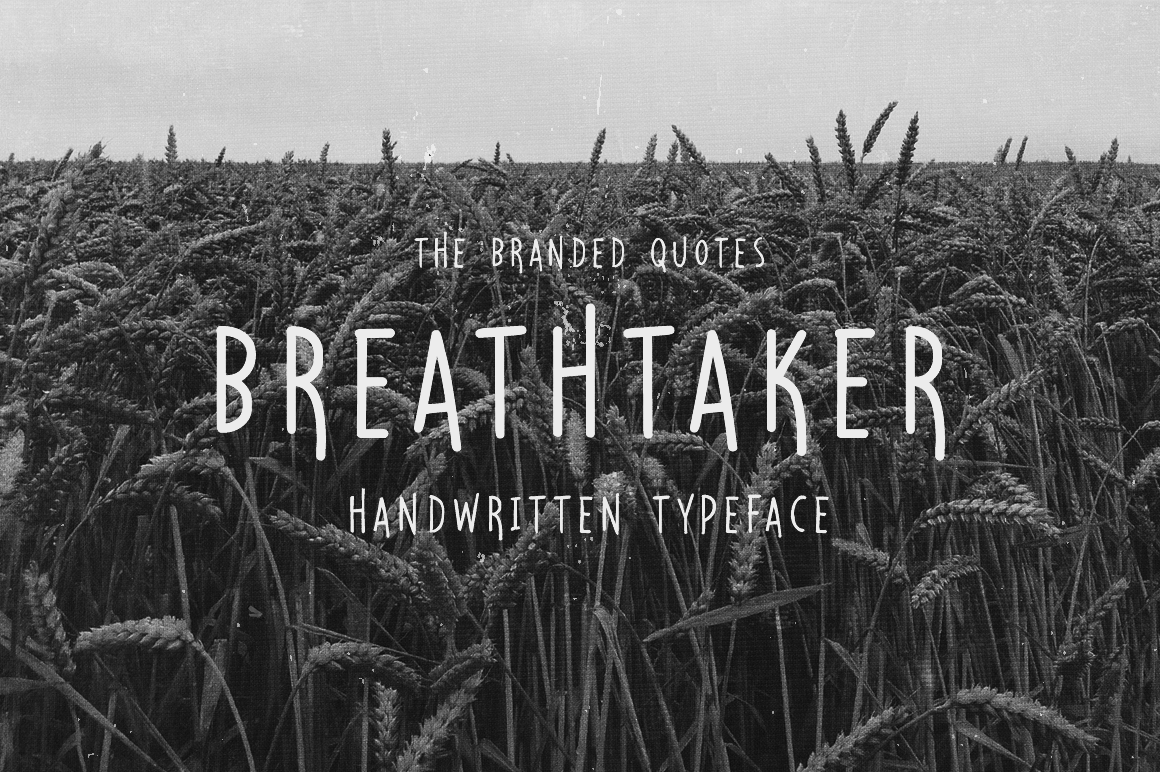
Breathtaker Typeface
A compound of groovy monoline in different variations producing a lightweight output.
The straightforward structure of this typeface makes it subtle and could standout of its own.
Simple though convincing as it looks. The Breathtaker Typeface!
Breathtaker - the regular and clean version from the font set.
Breathtaker Marker - solid look which will match with your illustrations, logos and bold messages.
Breathtaker Pen - handwritten look and has the average weight. Perfect match for your vintage projects.
Breathtaker Pencil - extra thin lines that gives your photographs and projects the perfect effortless feel.
The fun, the summer, the lover - the Breathtaker!